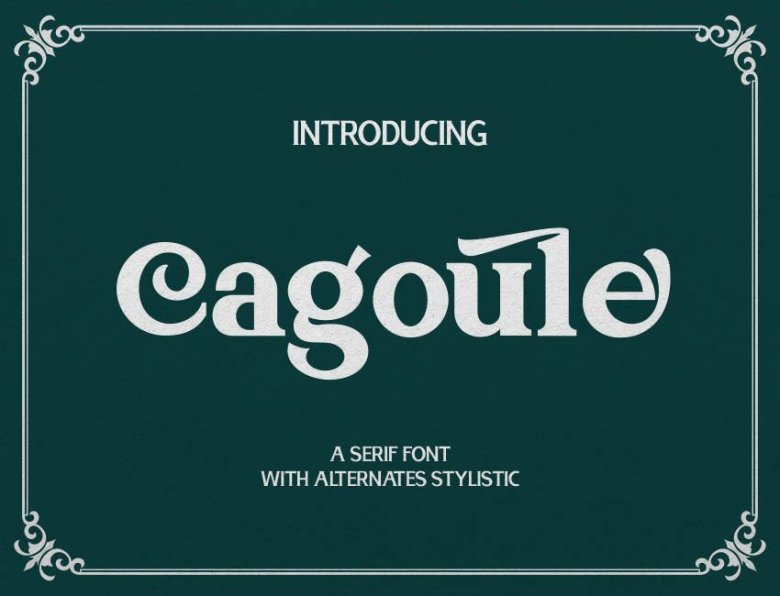
Cagoule Font
This is a serif font, which has a strong and bold character with vintage modern styles. It looks beautiful on a variety of designs requiring a personalized style, such as wedding invitations, thank you cards, weddings, greeting cards, logos and so on.